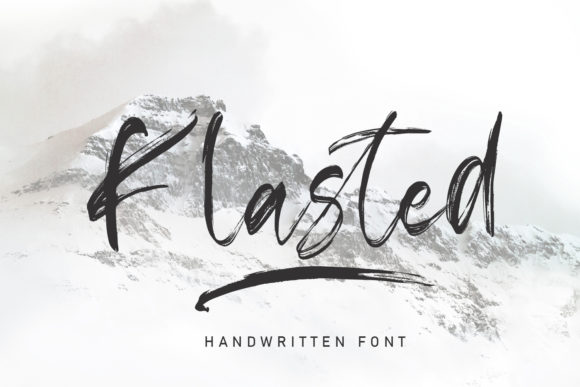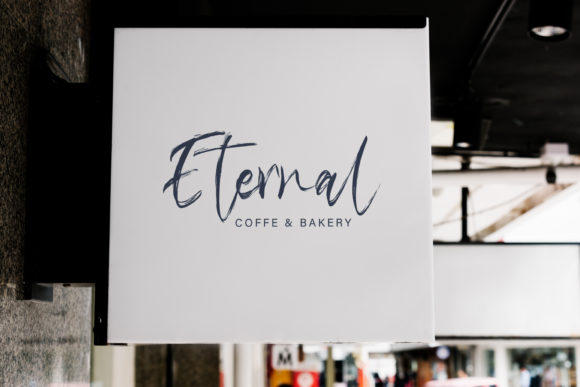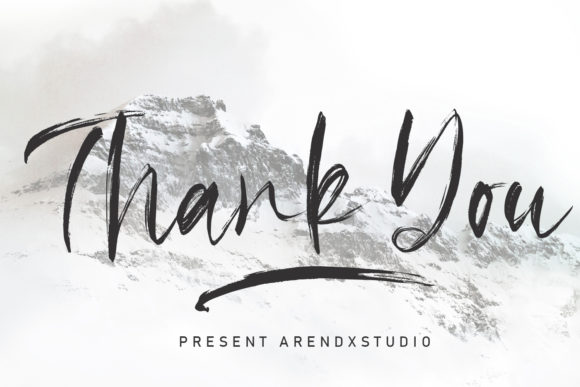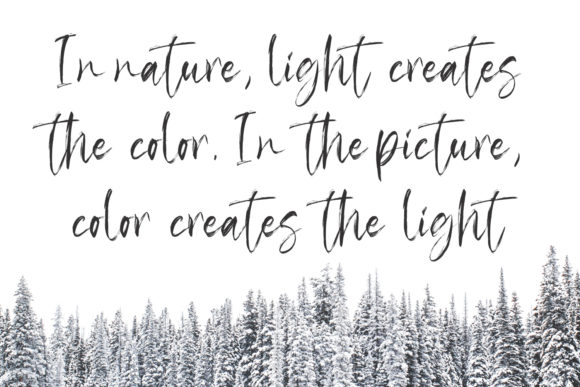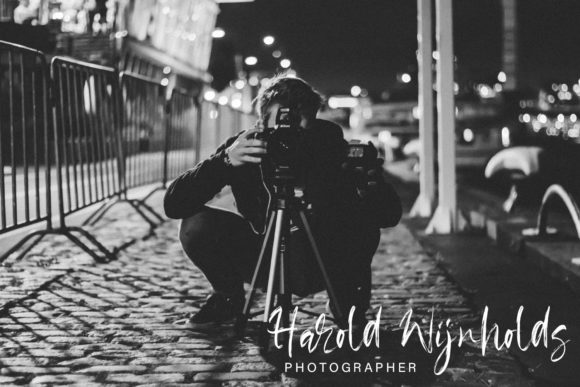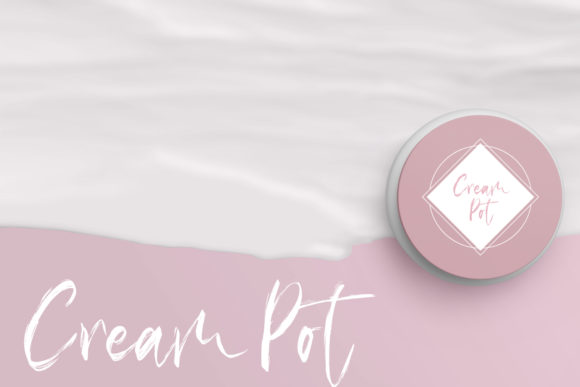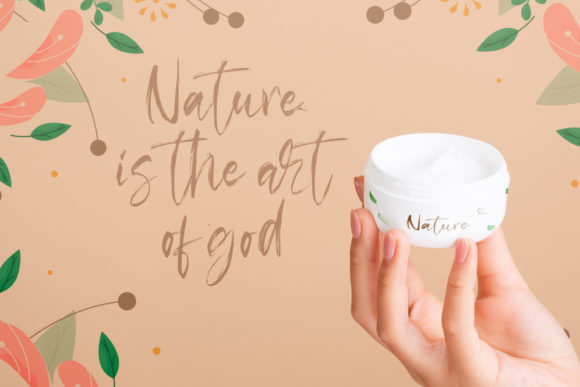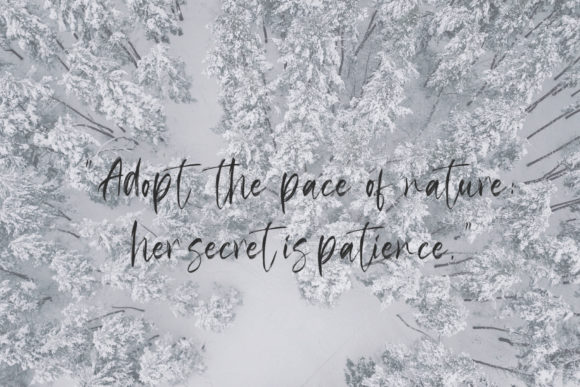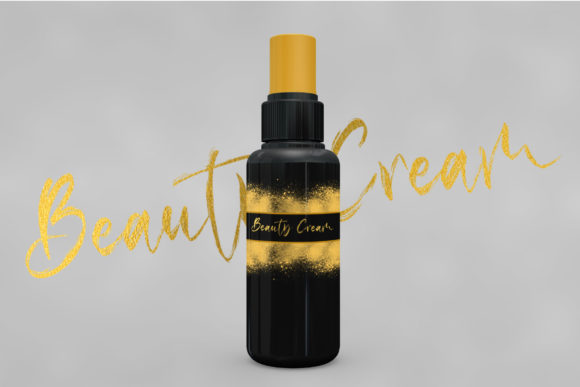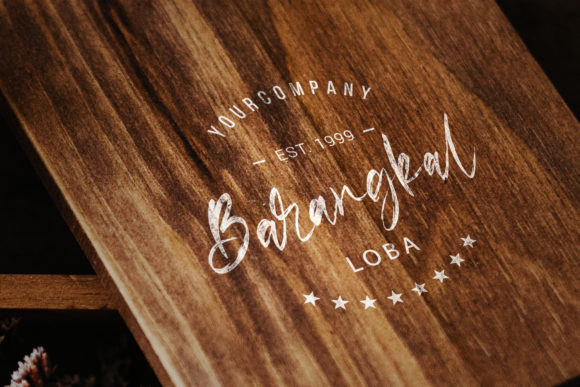
HomeScript FontsKlasted Font Script Fonts Klasted Font FacebookXPinterestWhatsApp Klasted Font Poster 2 Klasted Font Poster 3 Klasted Font Poster 4 Klasted Font Poster 5 Klasted Font Poster 6 Klasted Font Poster 7 Klasted Font Poster 8 Klasted Font Poster 9 Klasted Font Poster 10 Klasted Font Poster 11 About Klasted Font Klasted is a raw, adventurous and bold brush script font that evokes the style of strong and organic handwriting. DOWNLOAD NOW People also explored Enofive Font Sweetboys Font McKenna Light Font La Coquine Font Duo Elowyn Font Callisa Font Sindyceta Script Font Somersault Font Sleek Font 306 0 TagsKlasted Font Previous articleNagasaki FontNext articleBrilliant Font LEAVE A REPLY Cancel reply Comment: Please enter your comment! Name:* Please enter your name here Email:* You have entered an incorrect email address! Please enter your email address here Website: Save my name, email, and website in this browser for the next time I comment. Personal Use Free Where the Cookies Personal Use Free Read more about this font Bruttney Personal Use Free Read more about this font Oatmeal Personal Use Free Read more about this font Antaro Personal Use Free Read more about this font BLOG To increase your work productivity, choose the most readable fonts. In today's fast-paced work environment, where digital communication and information consumption are integral to our daily routines, the choice of fonts can significantly impact... Modern Sans-Serif Fonts That Brands Love in 2025 Free Fonts Risk: Why Free Fonts Can Be Dangerous for Designers The 10 Best Handwriting Fonts to Add Personality to Your Designs